Great graphic design is powered by great font selection. But picking great fonts is a challenge most people. Luckily, Canva has made adding great fonts to your designs much easier. In this tutorial, our team of design experts will cover the best digital clock fonts in Canva.
What is a Digital Clock Font?
Fonts that resemble a digital clock typically share the following characteristics:
- Segmented design: The font is designed with clear, straight lines and sharp angles to create a segmented, digital appearance.
- Monospaced: The font has a fixed width for each character, creating a consistent appearance and allowing for easy alignment of numbers.
- Bold and blocky: The font is designed to be easily readable from a distance, with thick, bold lines and a blocky appearance.
- Sans-serif: The font typically does not have any serifs or decorative elements, as these can interfere with the clean, digital look.
- Uniform stroke width: The stroke width of each character is typically consistent, which helps to maintain the uniformity of the font.
- High contrast: The contrast between the foreground and background of the font is usually high, making the numbers stand out clearly.
- Clear digits: The digits themselves are usually designed to be very clear and easily distinguishable, with simple shapes and minimal flourishes.
Best Canva Digital Clock Fonts
1. Dotty
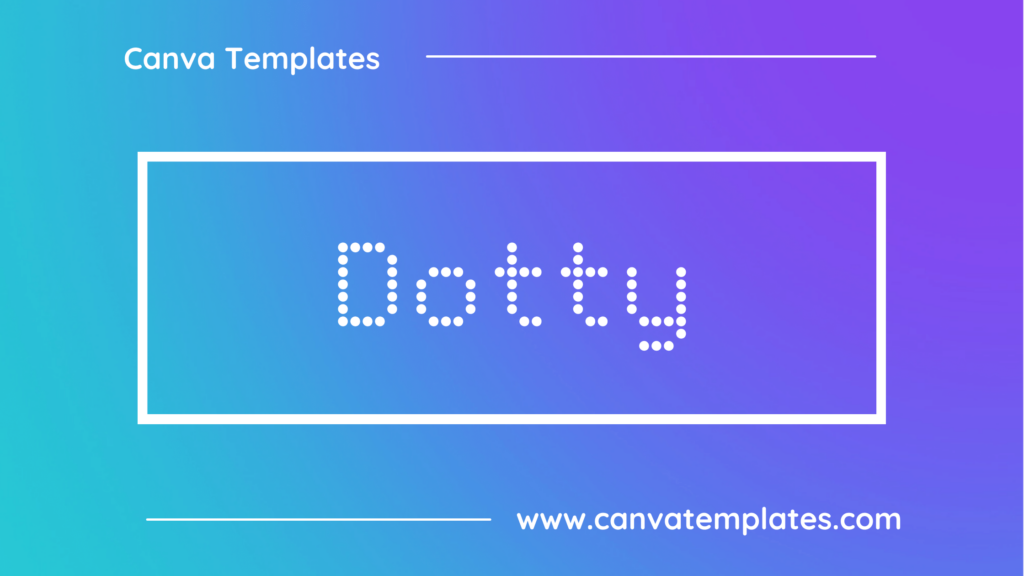
Dotty is a pixelated font with a retro style. The characters are made up of small dots, giving it a distinctive 8-bit video game aesthetic. The font is playful and has a fun, nostalgic feel to it.
2. Point
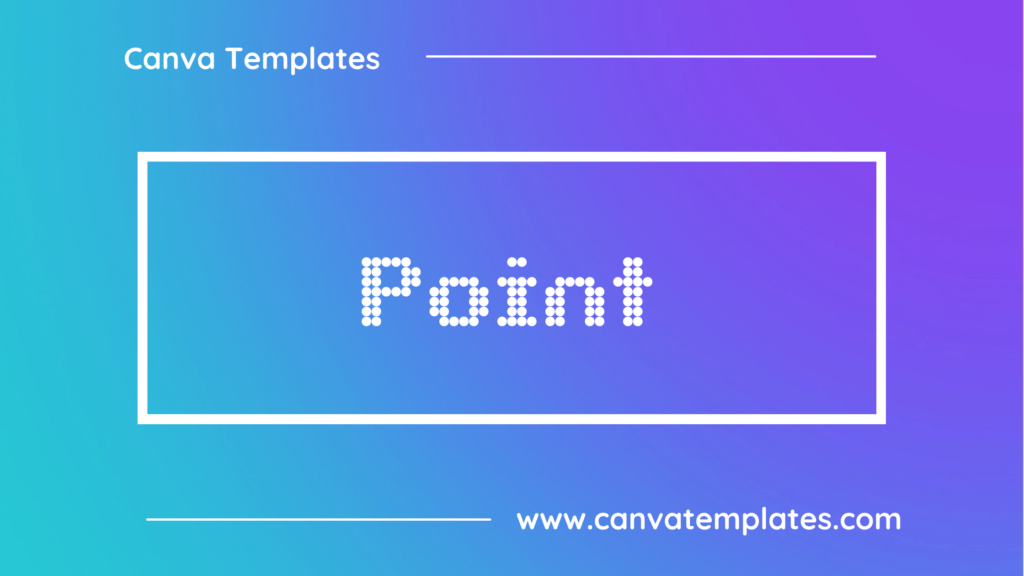
Point is a pixelated font designed to look like characters from retro video games. It features a square, grid-like design with each character consisting of a series of pixels arranged in a specific pattern. It has a distinctive, nostalgic appearance and is often used in designs and projects that aim to evoke a sense of retro gaming culture.
3. CityLight Dots
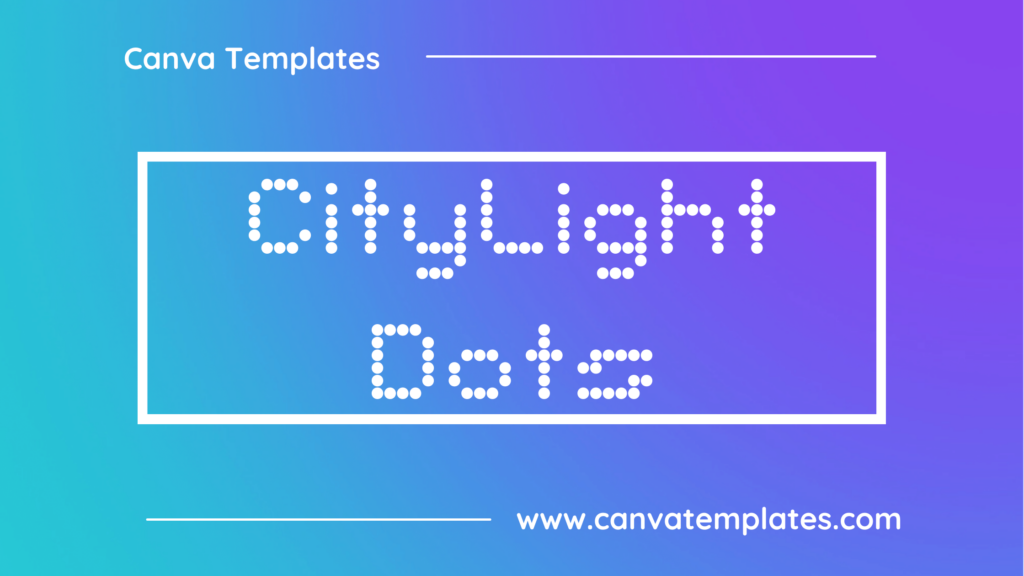
CityLight Dots is a pixelated font with dots arranged in a pattern resembling a digital clock or LED display. Each character is formed by a grid of dots and is easily recognizable due to the distinctive style. The font is available in various sizes and is suitable for use in digital displays, video games, and other applications where a pixelated font is needed.
4. VT323
VT323 is a monospaced font that features a vintage look and feel. It was inspired by old video terminals used in the 70s and 80s, and has a distinct techno style. The font has a uniform width, making it easy to read and align code blocks. It is often used in programming environments, but can also be used in other contexts where a retro or vintage look is desired.
5. Tomorrow
Tomorrow is a geometric sans-serif typeface designed by Adrien Coquet. It has a minimal and modern design with simple, clean lines and a range of weights and styles.
6. Roboto Mono
Roboto Mono is a monospaced font that is part of the Roboto font family, developed by Google. It has a clean, modern look and is designed to be easy to read on both screen and print.
7. Anonymous Pro
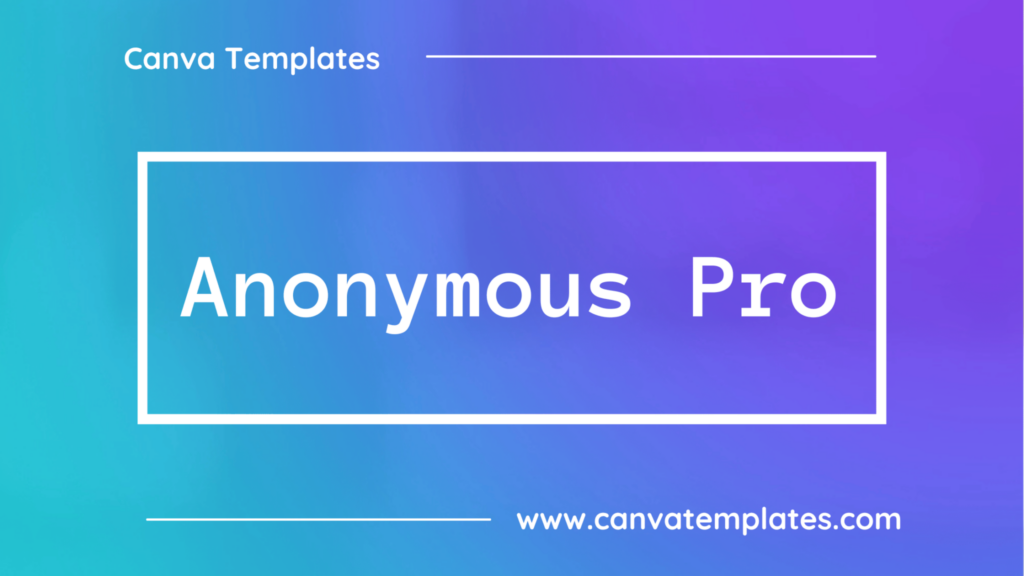
Anonymous Pro is a monospaced font that is similar in style to the ubiquitous Anonymous mask used by the hacktivist group Anonymous. It has a clean, modern look and is designed to be easy to read at both small and large sizes.
8. Basis33
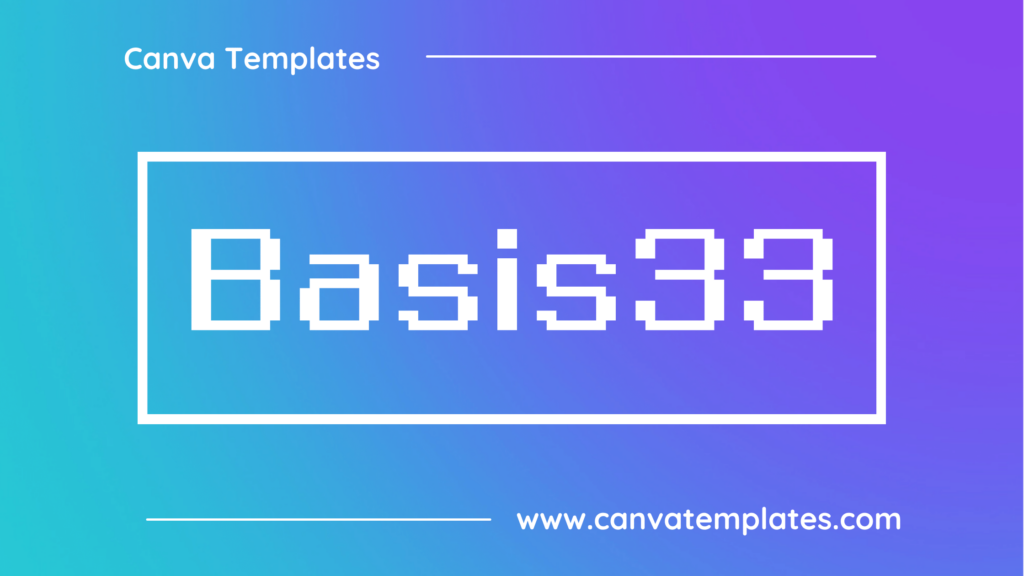
Basis33 is a geometric sans-serif typeface designed by Dutch type designer, Peter Verheul. It features clean lines and sharp angles, and was originally designed as a display font for posters and signage. Its contemporary design makes it a versatile choice for a wide range of graphic design projects.
9. Space Mono
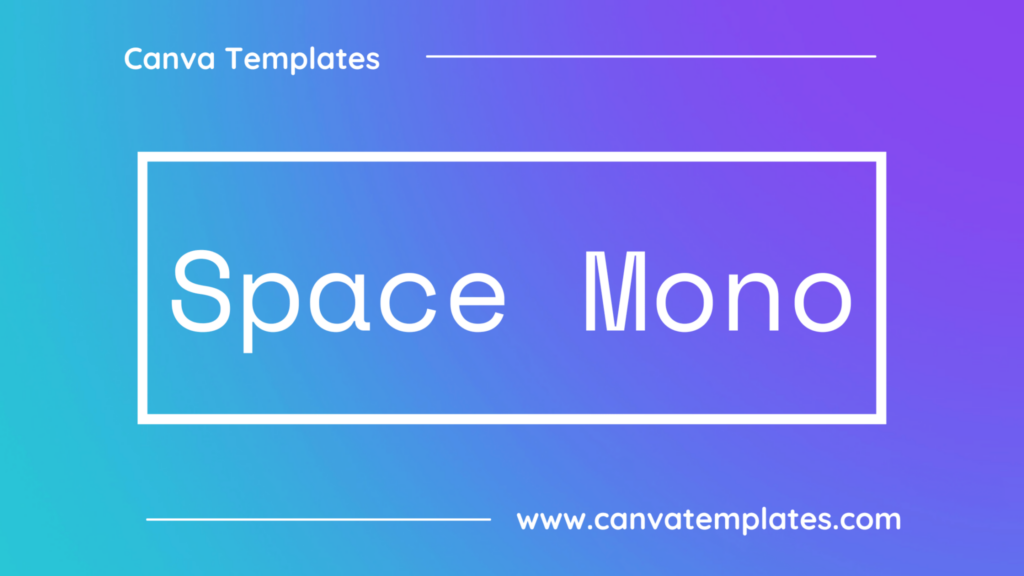
Space Mono is a monospaced font developed by Colophon Foundry that is designed to be easy to read on both screen and print. It has a retro-futuristic look and includes a wide range of characters, including Cyrillic and Greek.
10. Fira Code
Fira Code is a monospaced font designed specifically for coding that includes special ligatures that combine common programming symbols into a single glyph. This can make code easier to read and understand.